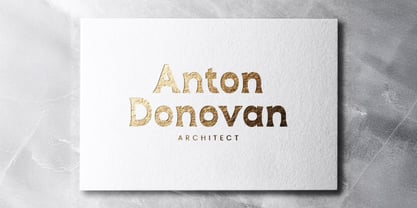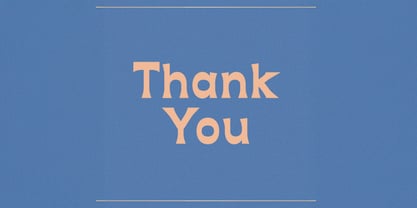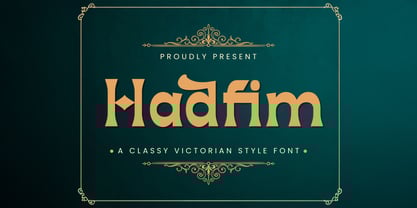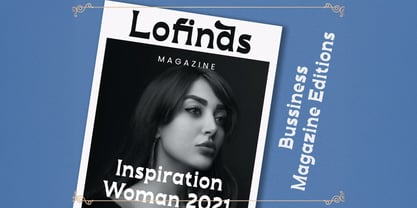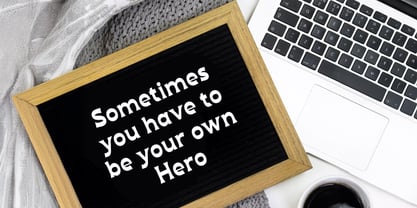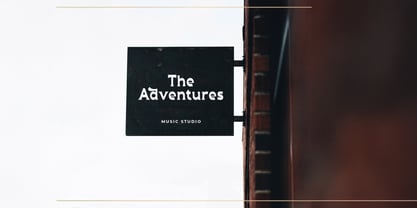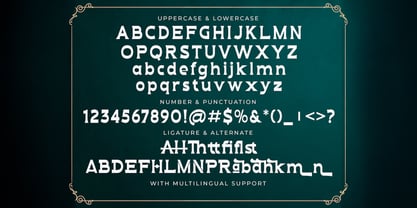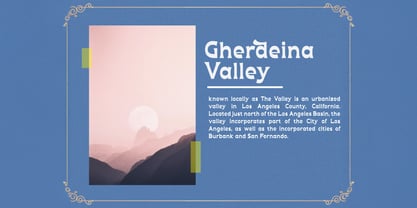
The Hadfim Font Family was designed by Virgiawan Listanto and published by Stringlabs Creative Studio. Hadfim contains 1 styles. More about this family
Hadfim, a fierce and commanding Blackletter font that channels gothic tradition with a modern, edgy twist. Its sharp angles, dramatic strokes, and medieval essence make it perfect for designs that demand strength, authority, and character. Whether you're creating logos, tattoo designs, music artwork, or vintage-style posters, Hadfim delivers a bold statement with timeless intensity.
Designers: Virgiawan Listanto
Foundry: Stringlabs Creative Studio
Hadfim